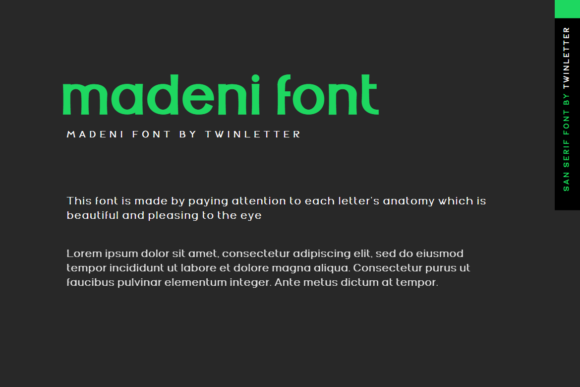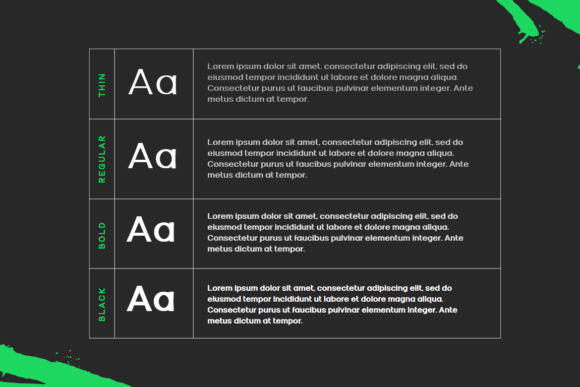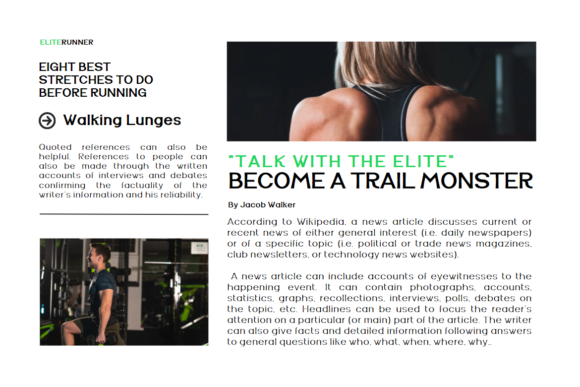
Introduction to Madeni Font
You’re sitting in front of your computer, staring at a blank canvas, and suddenly, a spark of creativity strikes. You have a vision for your next project – a bold logo, a striking t-shirt design, or an eye-catching product packaging. But, the question remains – what font will bring your idea to life? This is where the Madeni Font comes into play, offering a fresh and modern take on typography that’s perfect for any creative project.
As a designer, you understand the importance of having high-quality design resources at your disposal. The Madeni Font is a valuable addition to your toolkit, providing a versatile and bold sans serif font that’s ideal for logos, print materials, and digital products. With its transparent background and free download option, you can seamlessly integrate it into your design workflow, without any limitations or costs.
Key Features of Madeni Font
- High-quality design: Madeni Font is a premium font designed to meet the needs of creative projects, offering a unique and stylish look.
Honest Review: Madeni Font
As a designer, I’m always on the lookout for high-quality design resources to elevate my creative projects. The Madeni Font is one such find that has caught my attention lately. I downloaded it for free, and I must say it’s a great addition to my design library.
What works well about the Madeni Font is its versatility and high quality. The font comes with a transparent background, which makes it easy to customize and integrate into my designs. The font family has a clean and modern aesthetic that’s perfect for a variety of design projects.
However, there are some limitations to consider. The font family is relatively small, and it may not be as extensive as some other font libraries. Additionally, the font is not as customizable as some other options on the market.
Overall, I’m impressed with the Madeni Font and would recommend it to designers looking for a high-quality, free design resource. It’s a great addition to any design library, and I’m excited to use it in my future creative projects.
Common Use Cases for Madeni Font
Madeni Font is ideal for creative projects, such as logos, brochures, and social media graphics. Its transparent background feature makes it perfect for overlaying text on images or designs. You can also use Madeni Font in presentations, reports, and other documents where a unique and eye-catching font is desired.